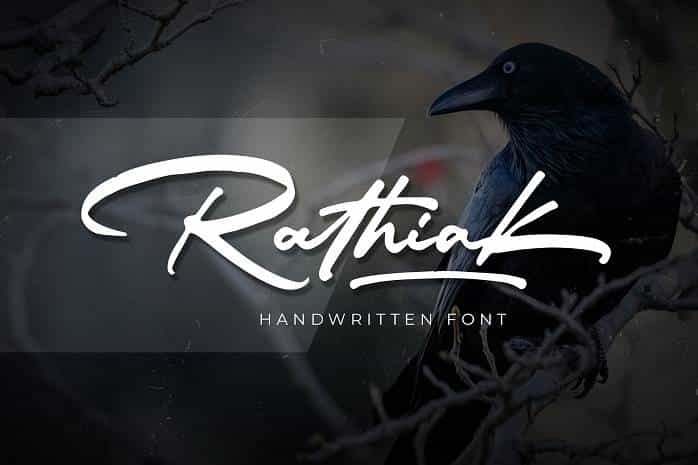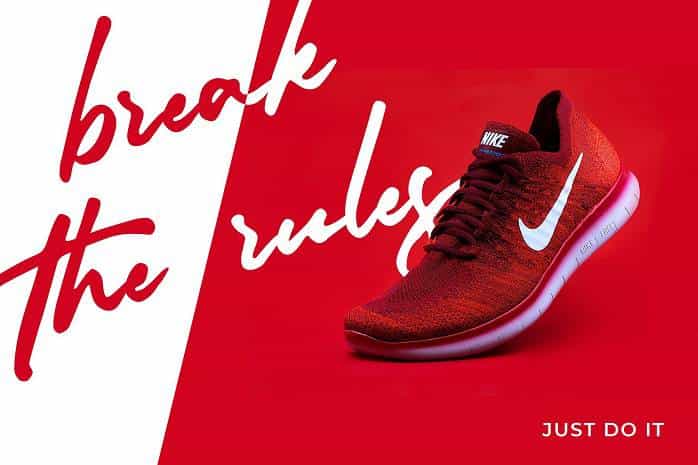
Do you need an expressive handwritten font? Indeed, Rathiak Font is the best choice. Designed and distributed by SusiType. Rathiak Handwritten Font , brush handwritten font. In the organic of handwritten feels. Created substitutes, ligatures and additional swash font. This font will do justice to any design project you may ever handle. Grab it now! Senella is perfect for any design project- vintage, fashion, branding, print design, and anything you want to design.